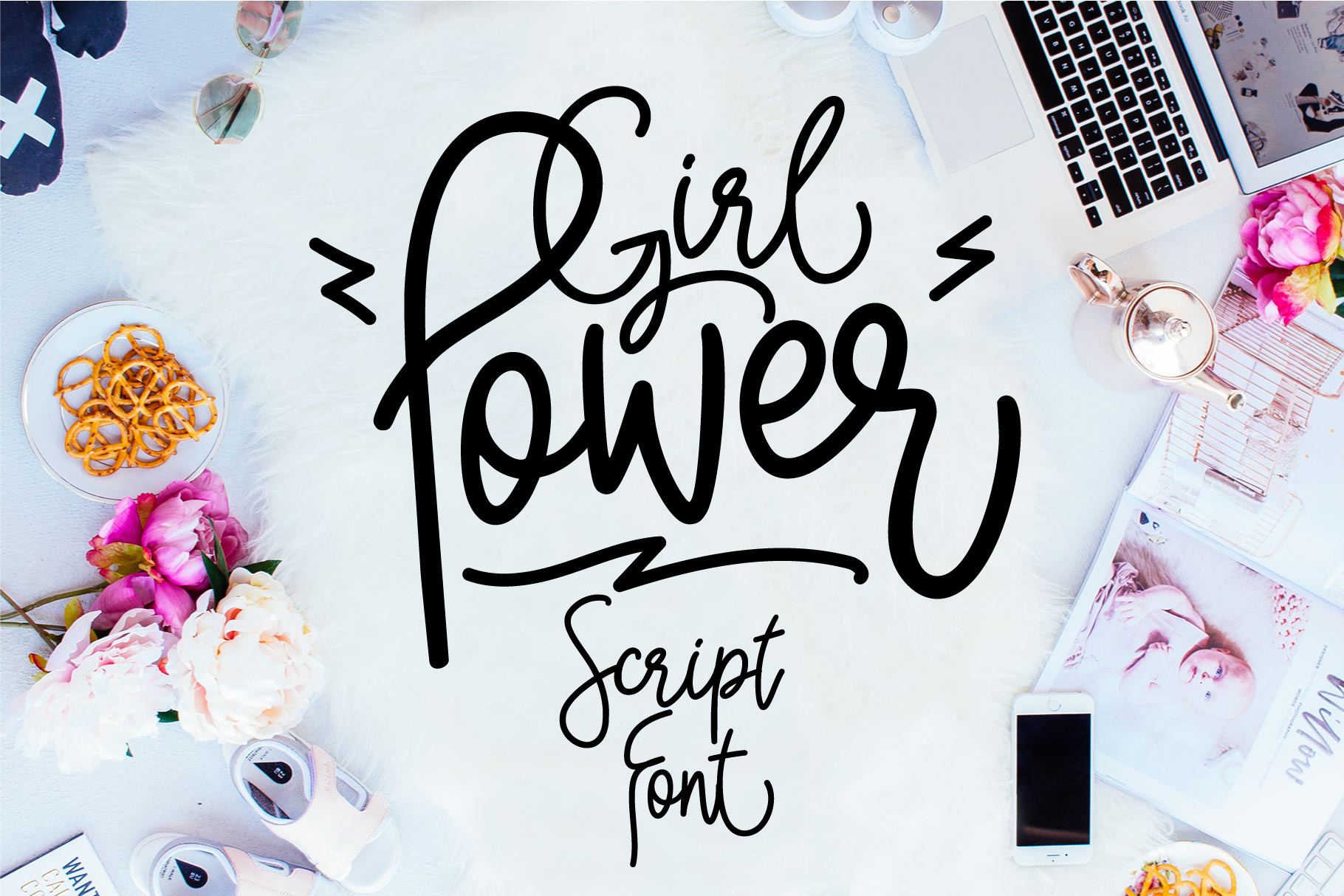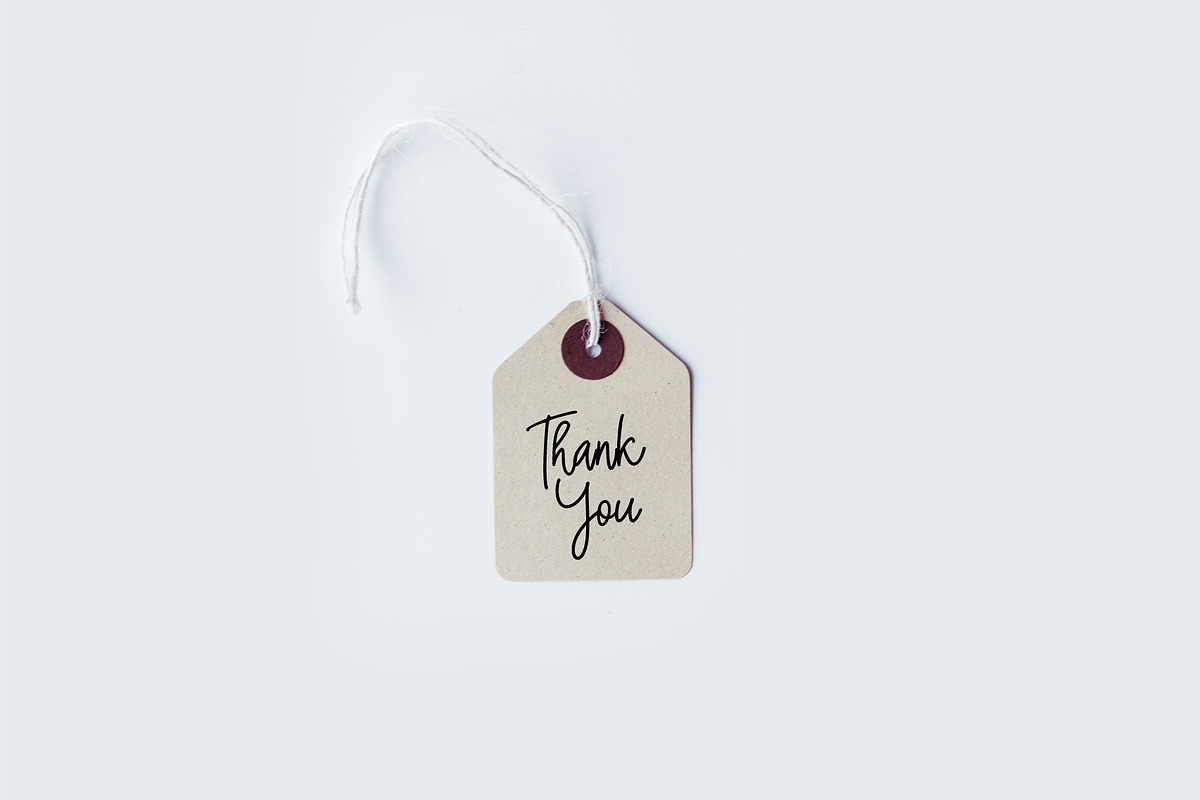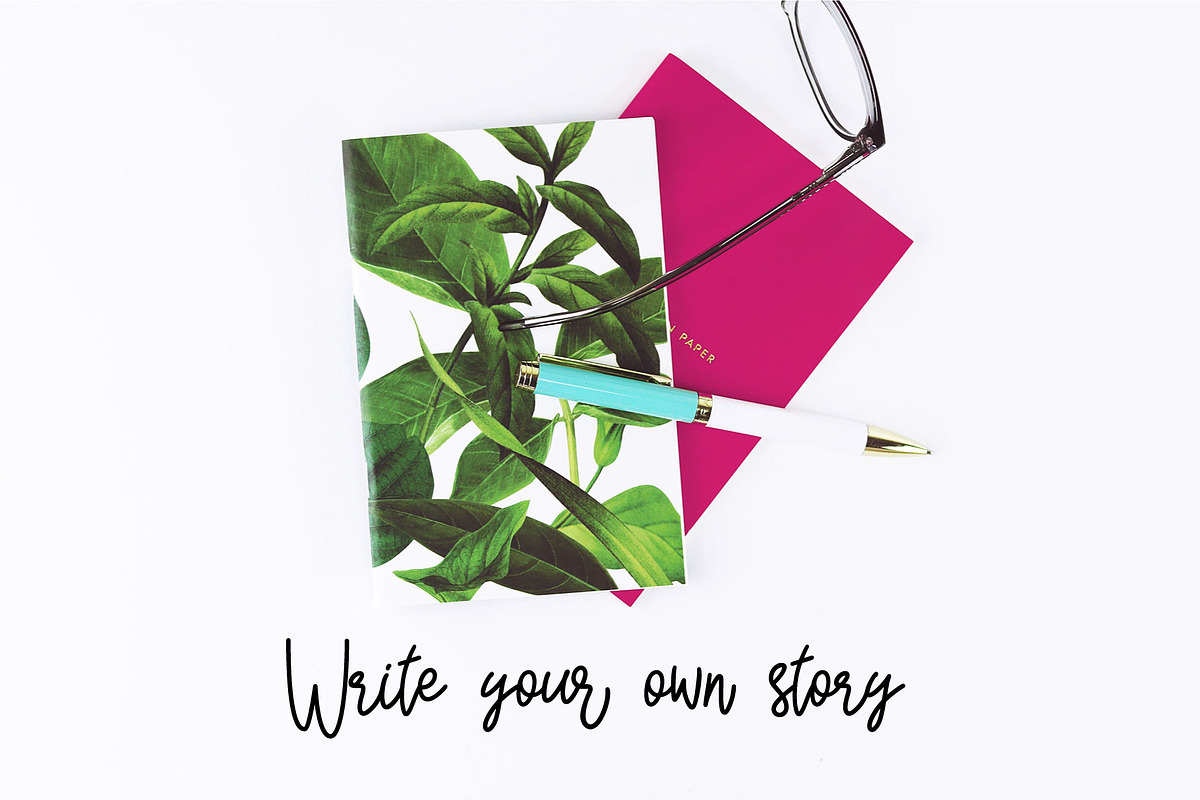
Girl Power font
Girl Power is a wedding calligraphy cursive font with a dancing baseline. This pretty monoline cursive will look gorgeous on all your designs, wedding stationery, love stories, branding materials, monoline logos, pretty teenage stickers, business and wedding cards, calligraphy insta quotes, elegant fashion sketches, calligraphy love monograms and much more.
- Calligraphy character set
- Numerals and punctuation